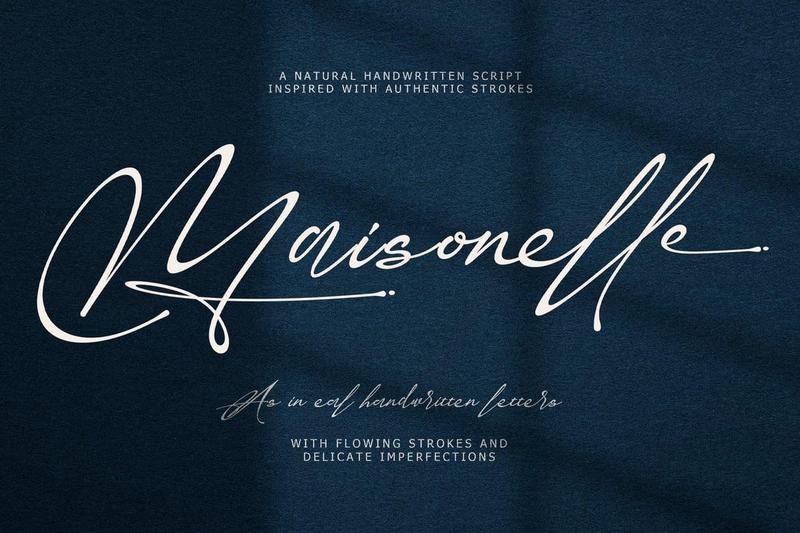
Maisonelle Modern Signature Typeface 5WKTTAY
Maisonelle is a refined handwritten script font crafted to deliver elegance, clarity, and authenticity in professional design projects. Featuring smooth flowing strokes and naturally balanced letterforms, this typeface offers a sophisticated handwritten appearance that enhances presentations, corporate stationery, premium packaging, publishing layouts, hospitality branding, certificates, product labels, and creative marketing materials. Its clean yet expressive style creates a polished visual identity while maintaining a warm and personal character, making Maisonelle an excellent choice for modern brands seeking a timeless and professional handwritten aesthetic.
* lowercase and uppercase letters
* Alternate, swash, titling & ligature